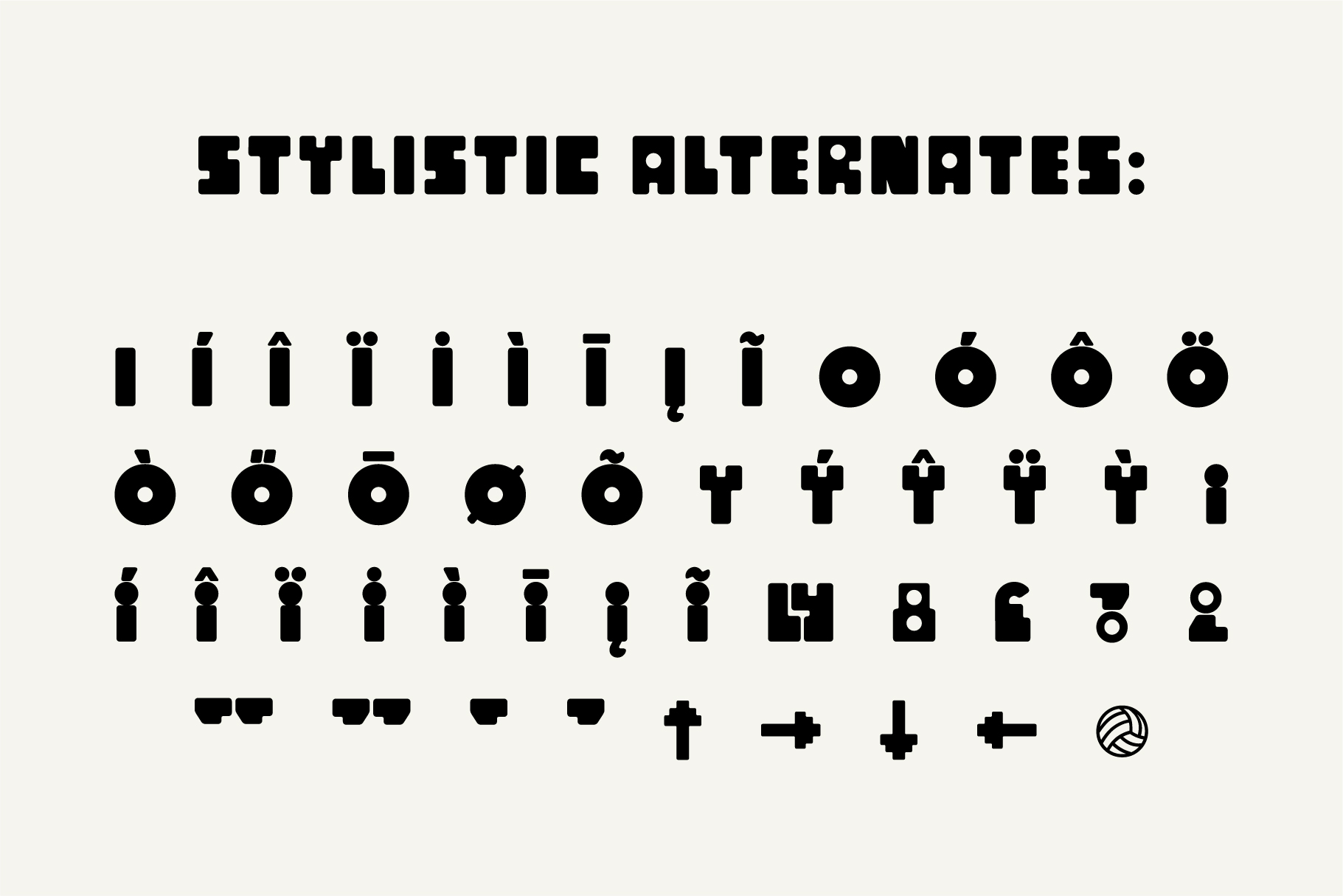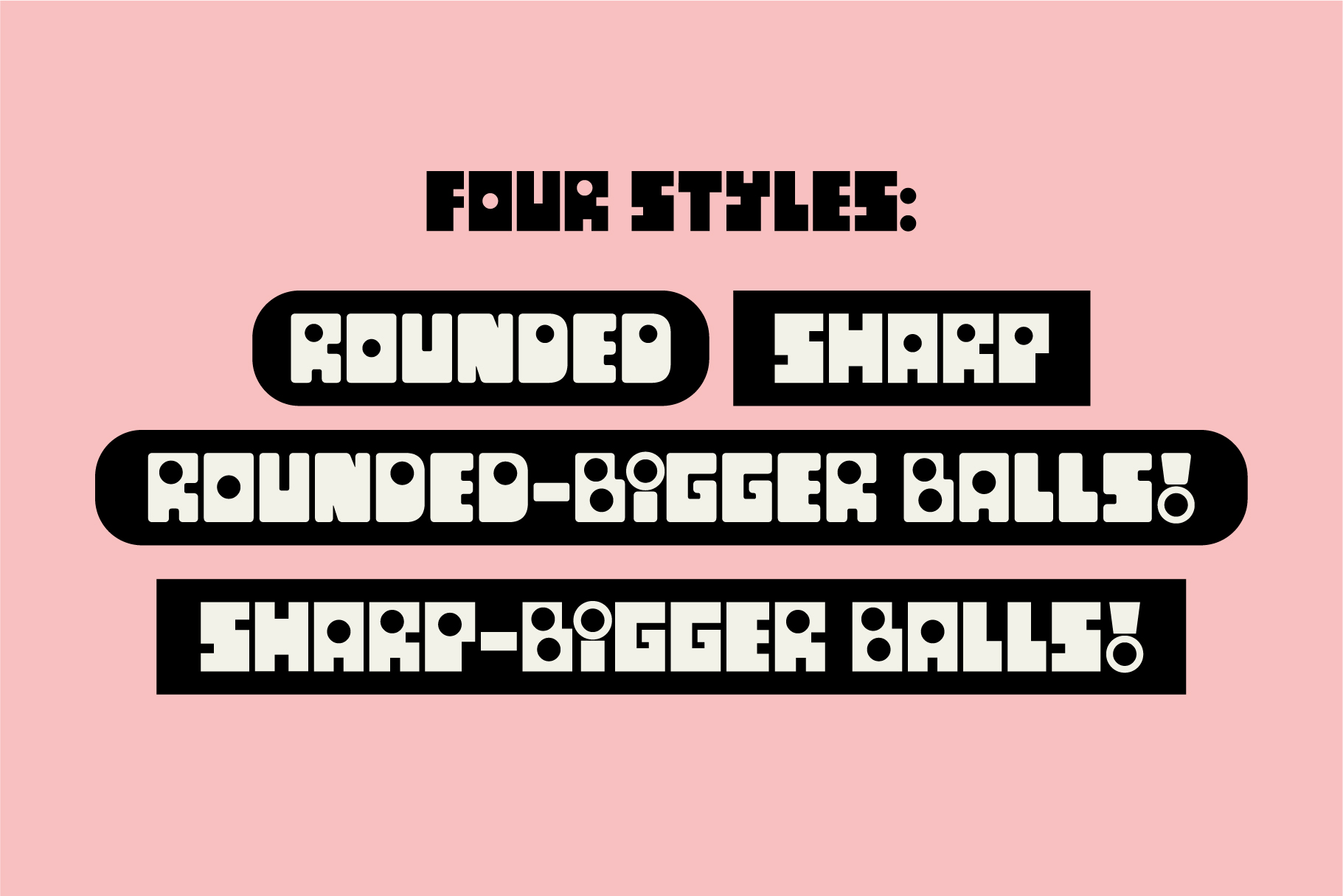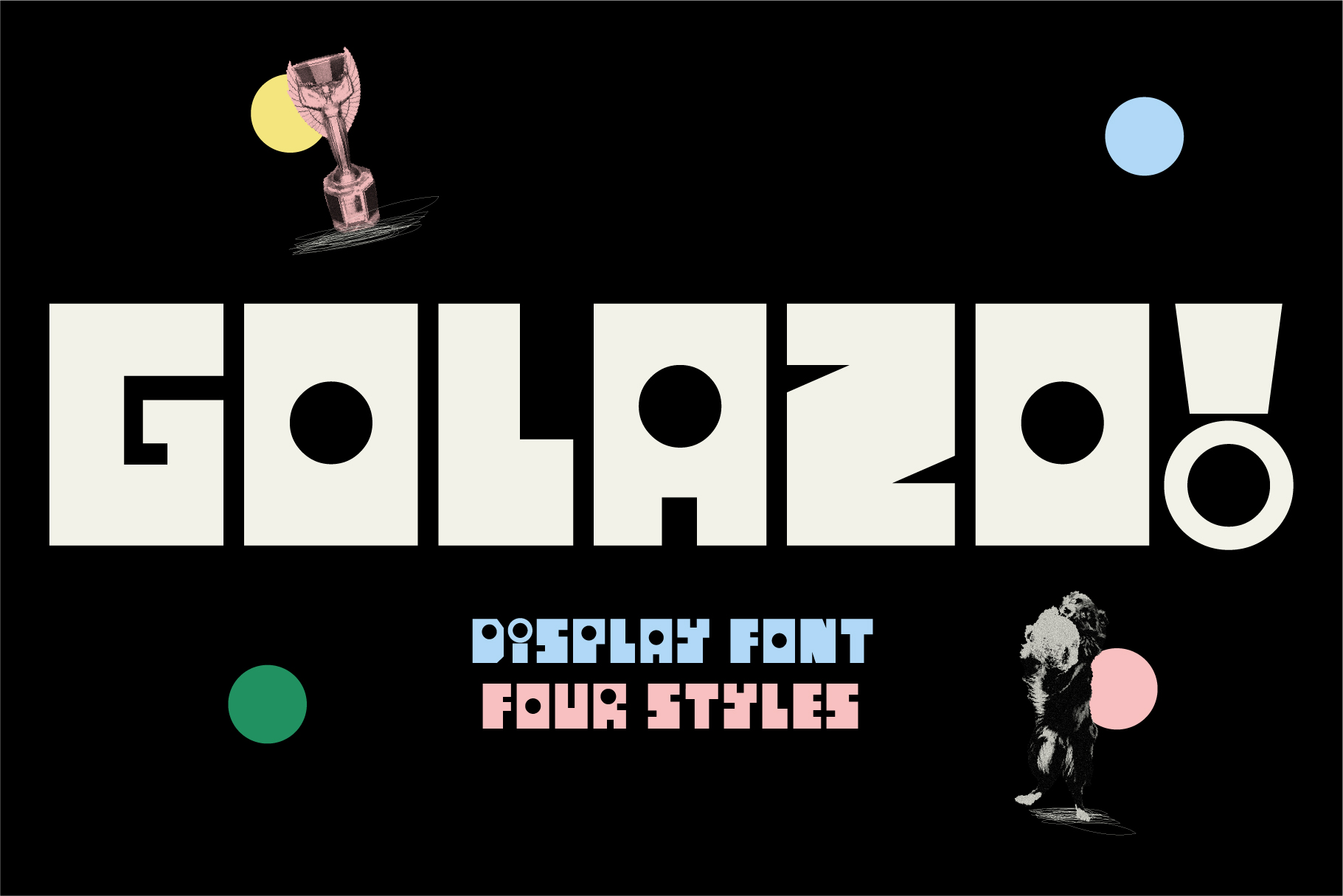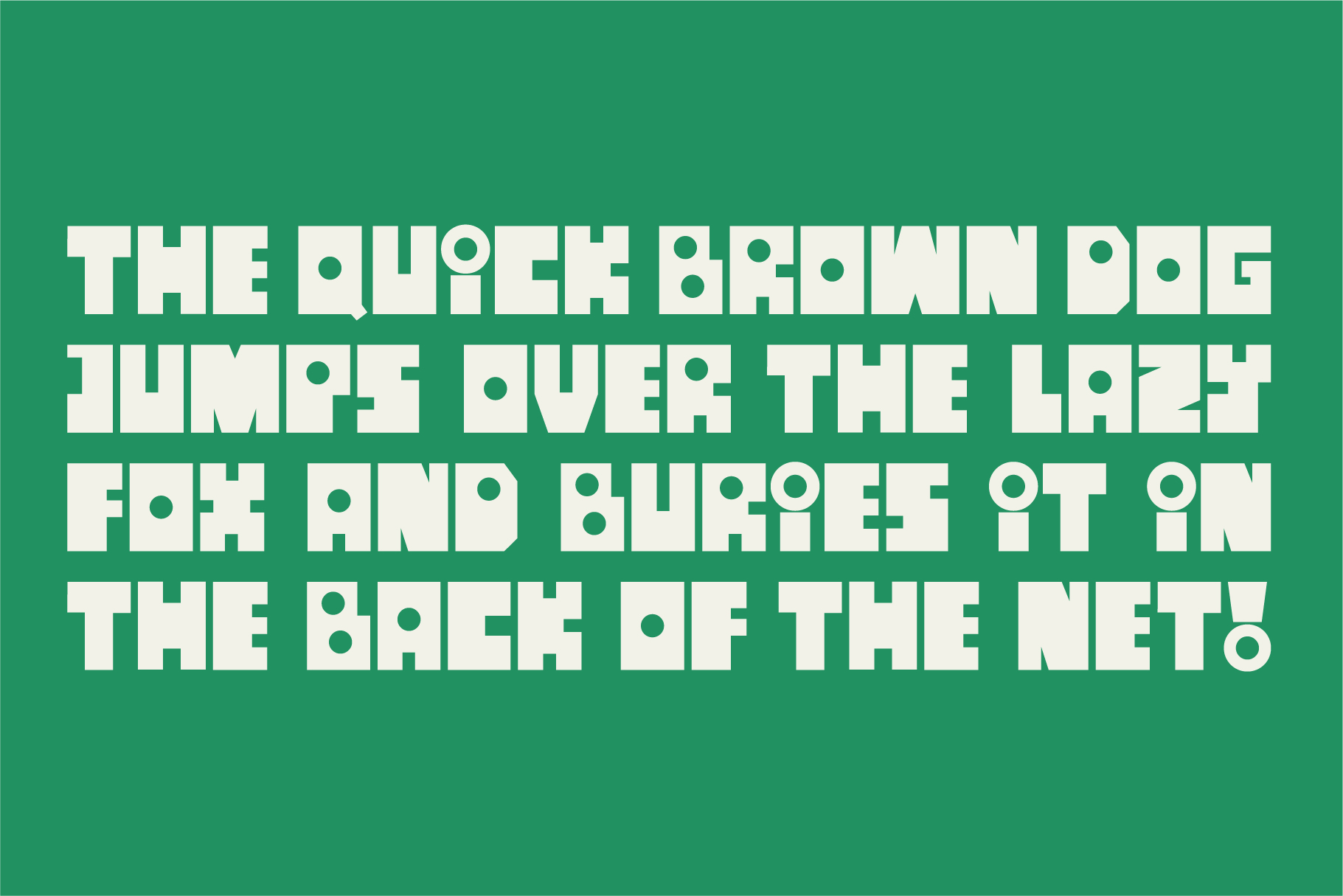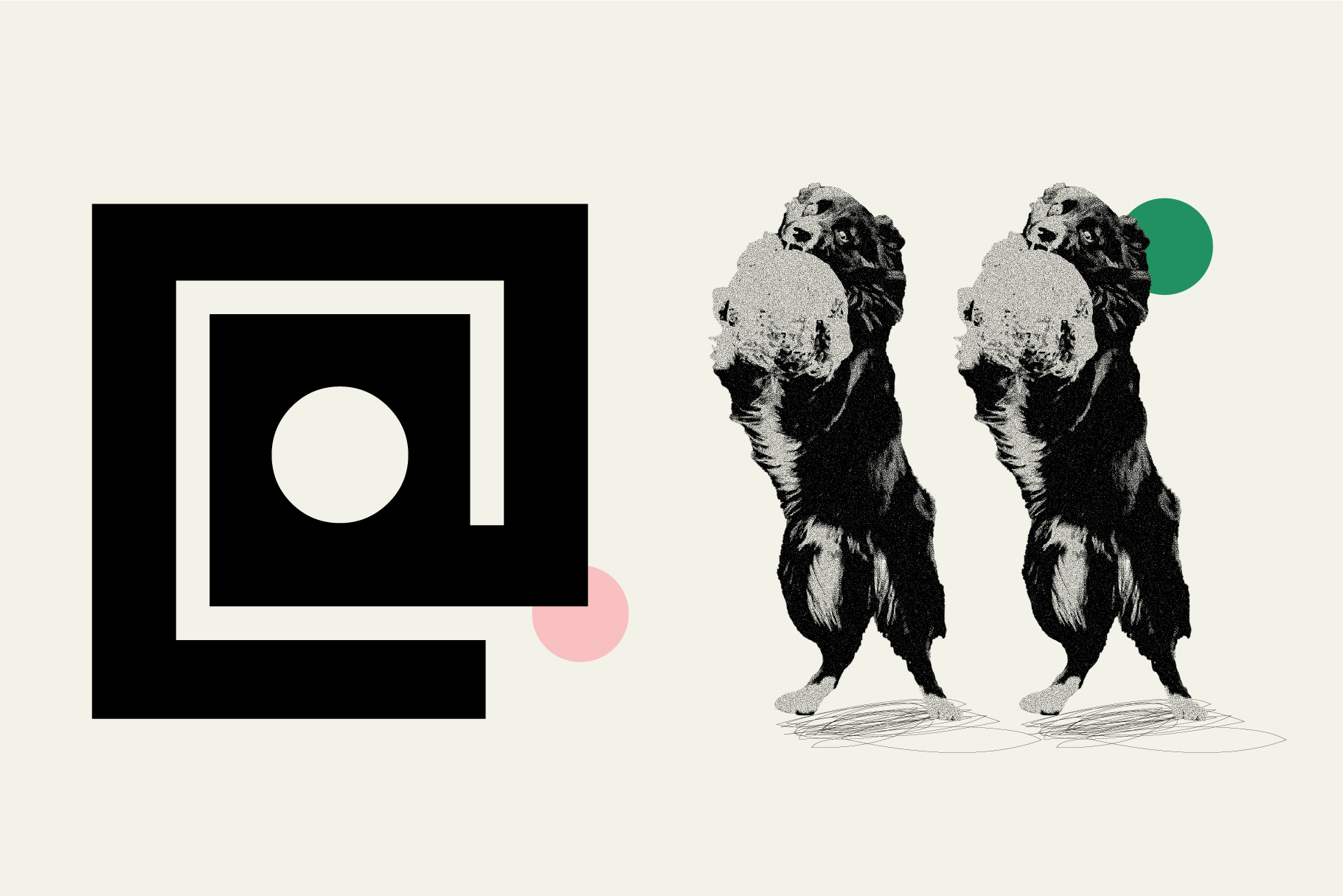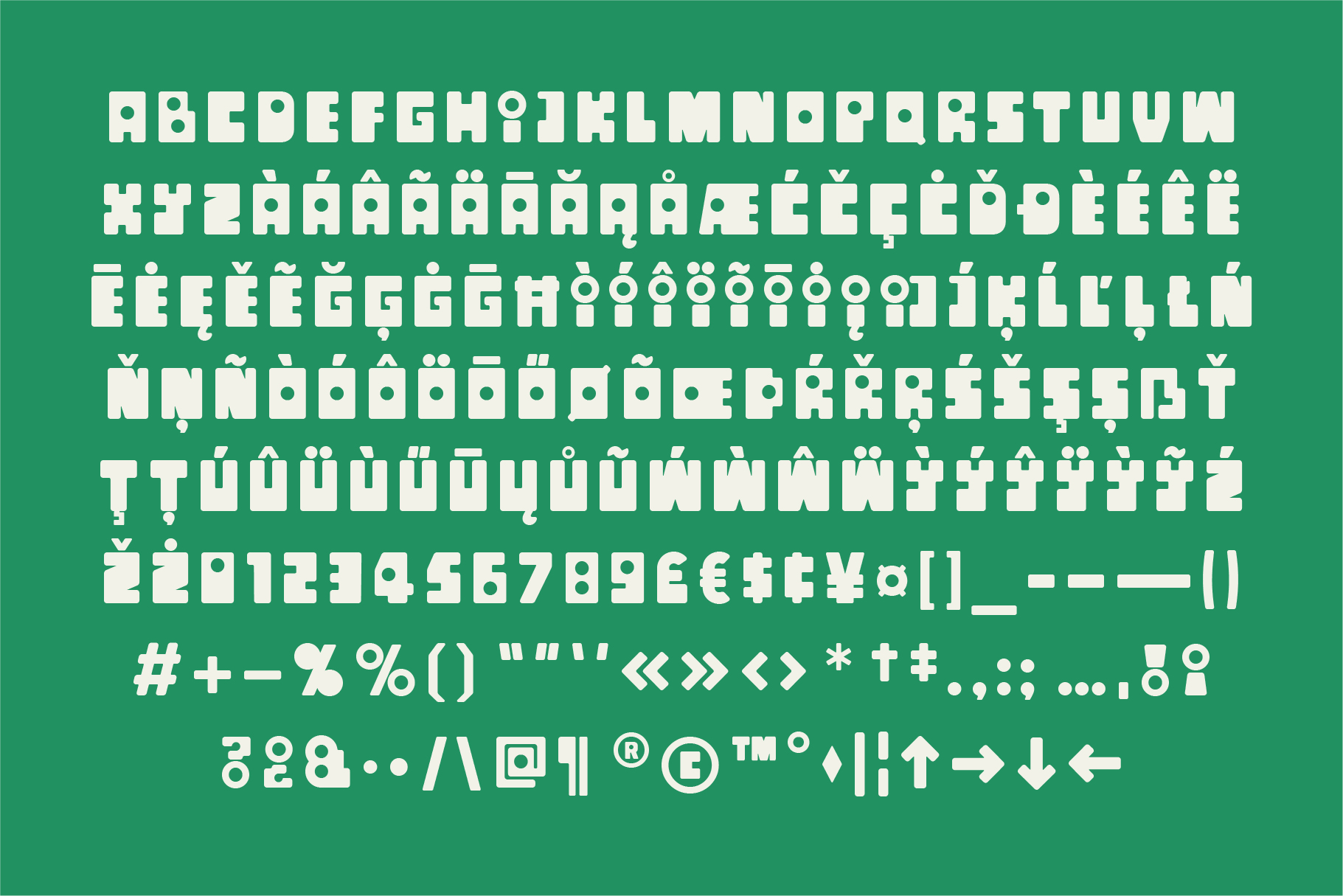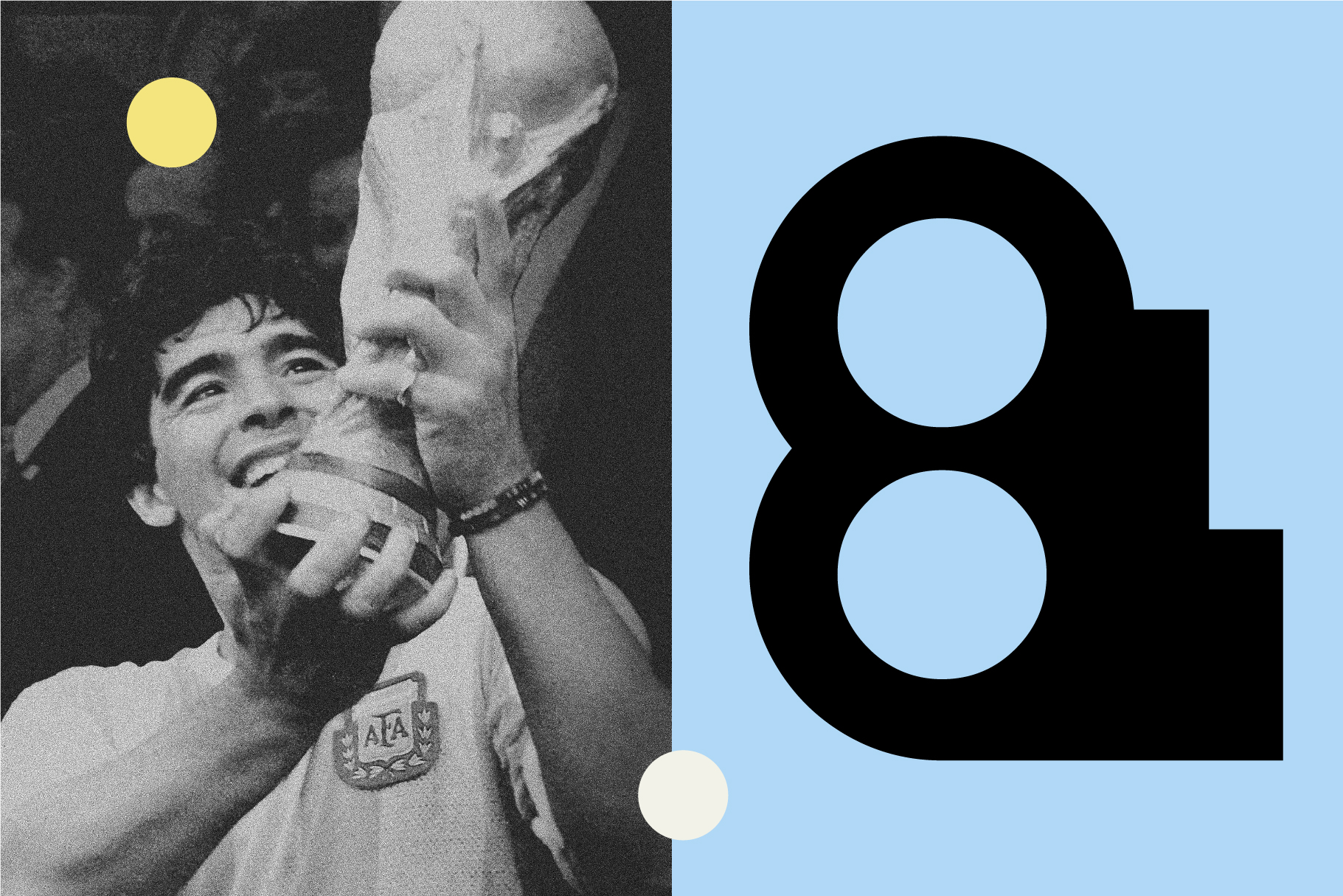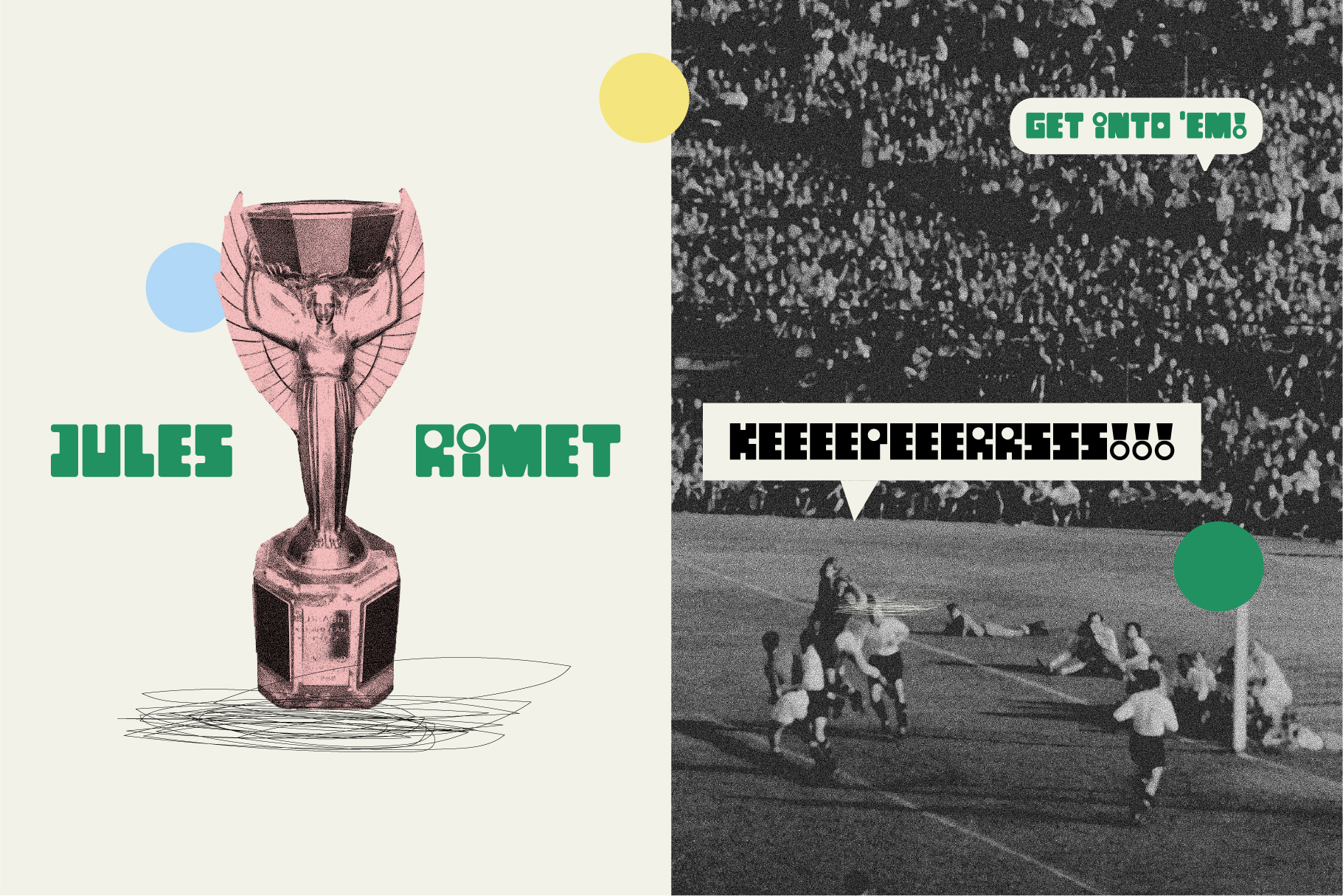
Golazo
Rounded Rounded—BiggerBalls Sharp Sharp—BiggerBalls
An ode to retro football paraphernalia, GOLAZO! is rooted in the charm of mid-century match-day programmes and hand-painted signs.